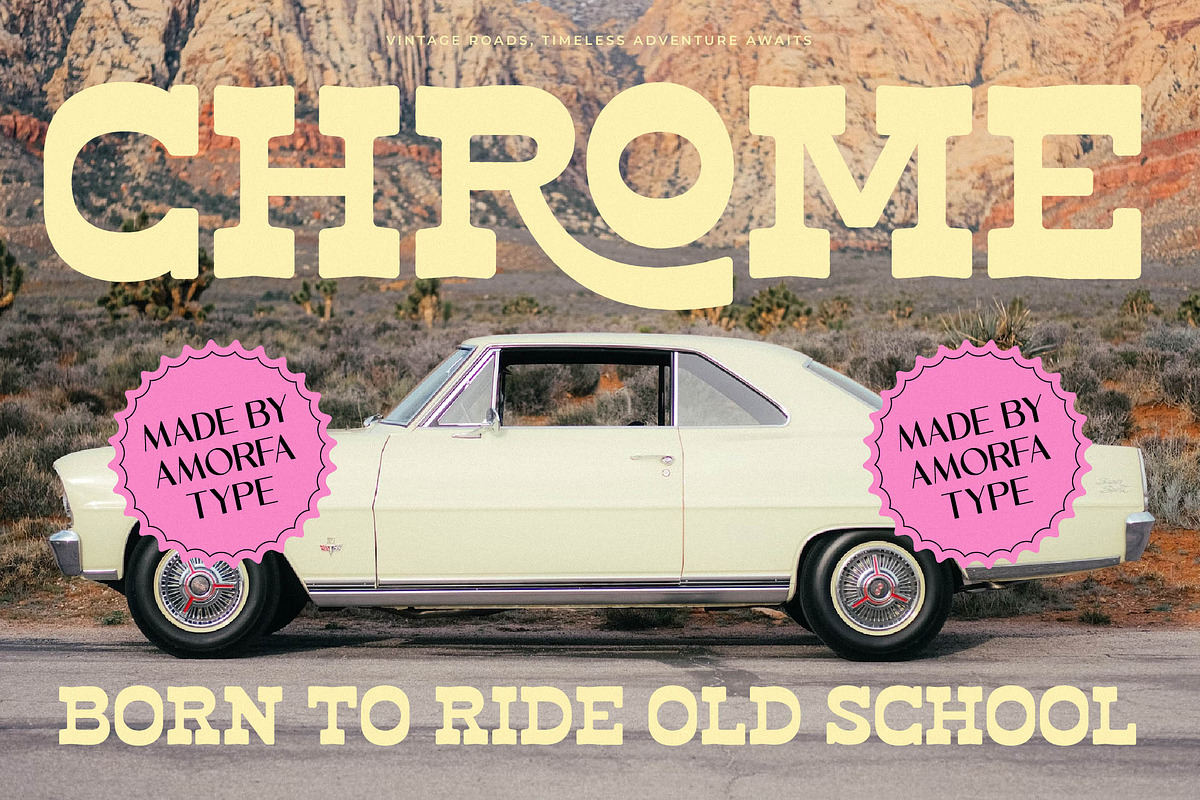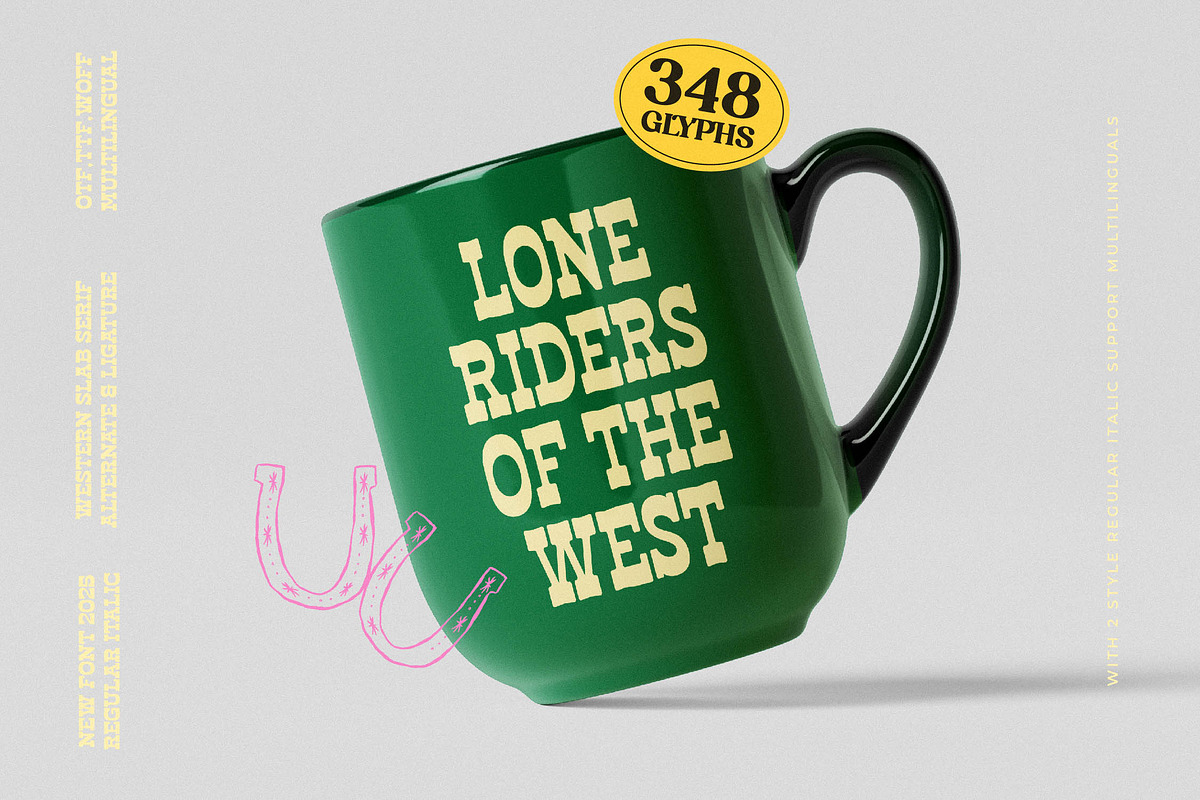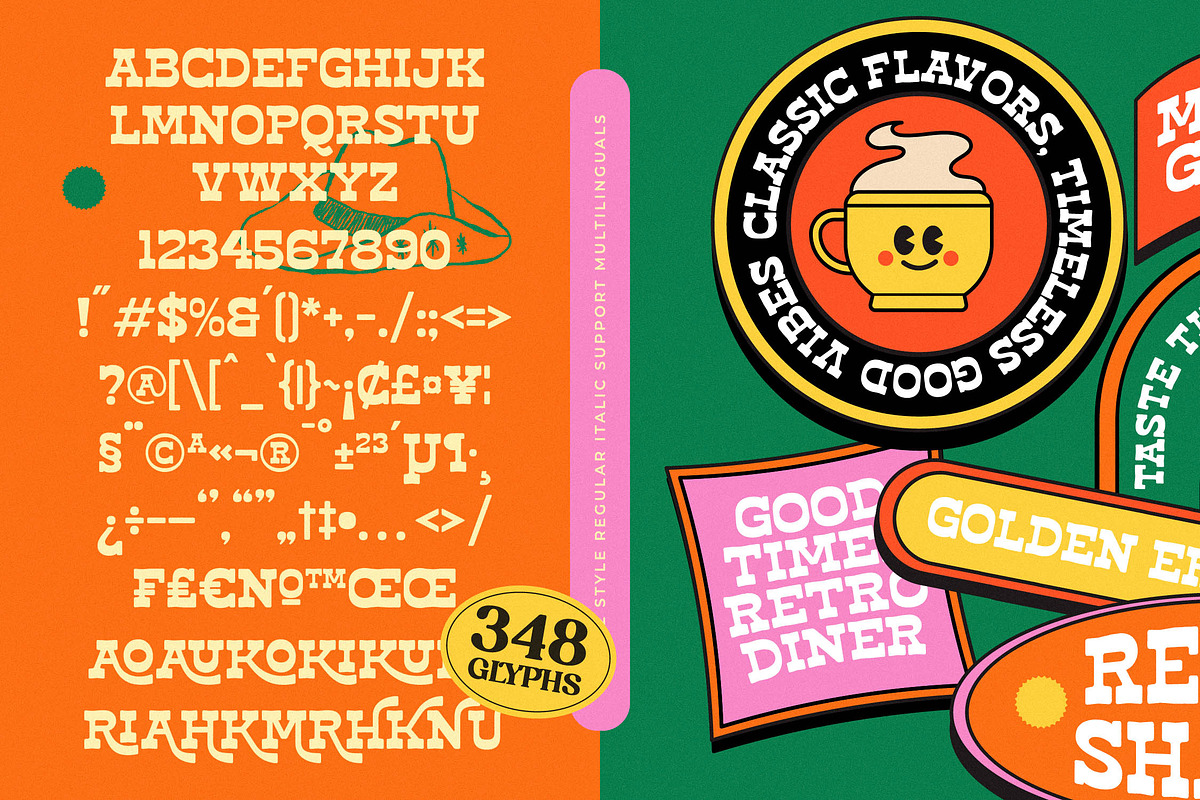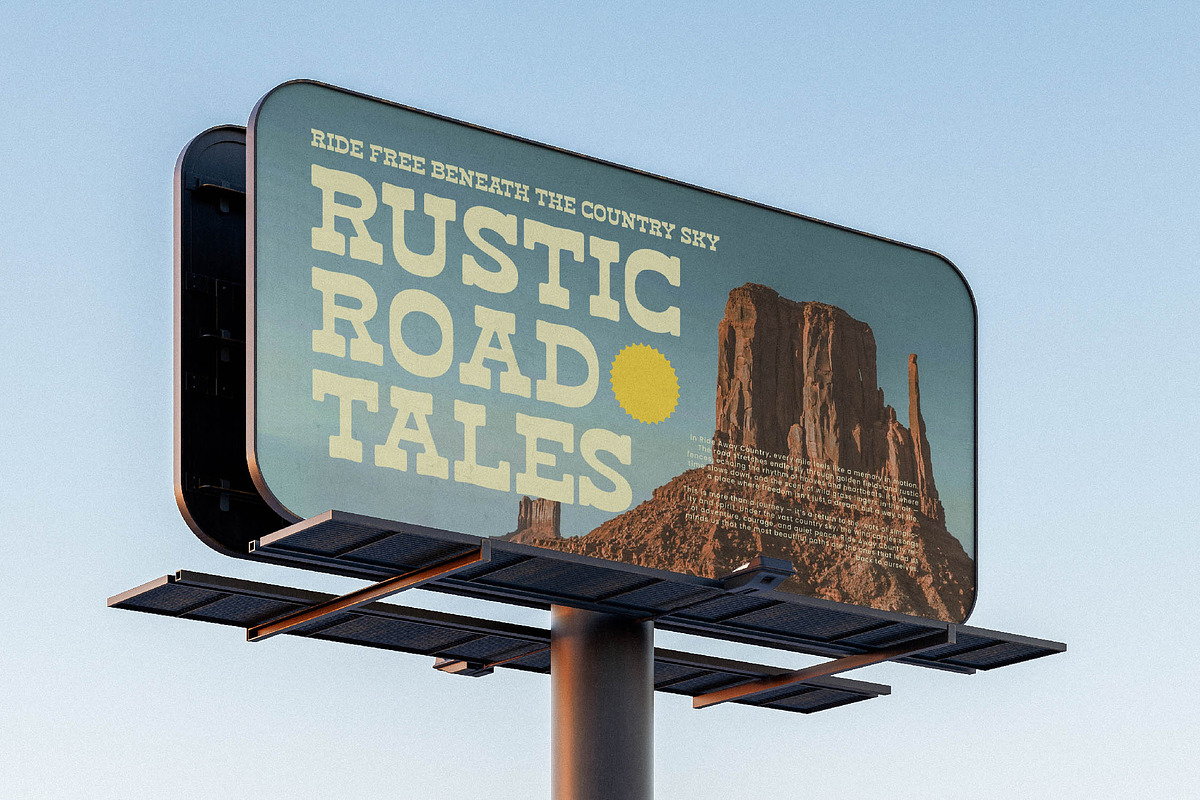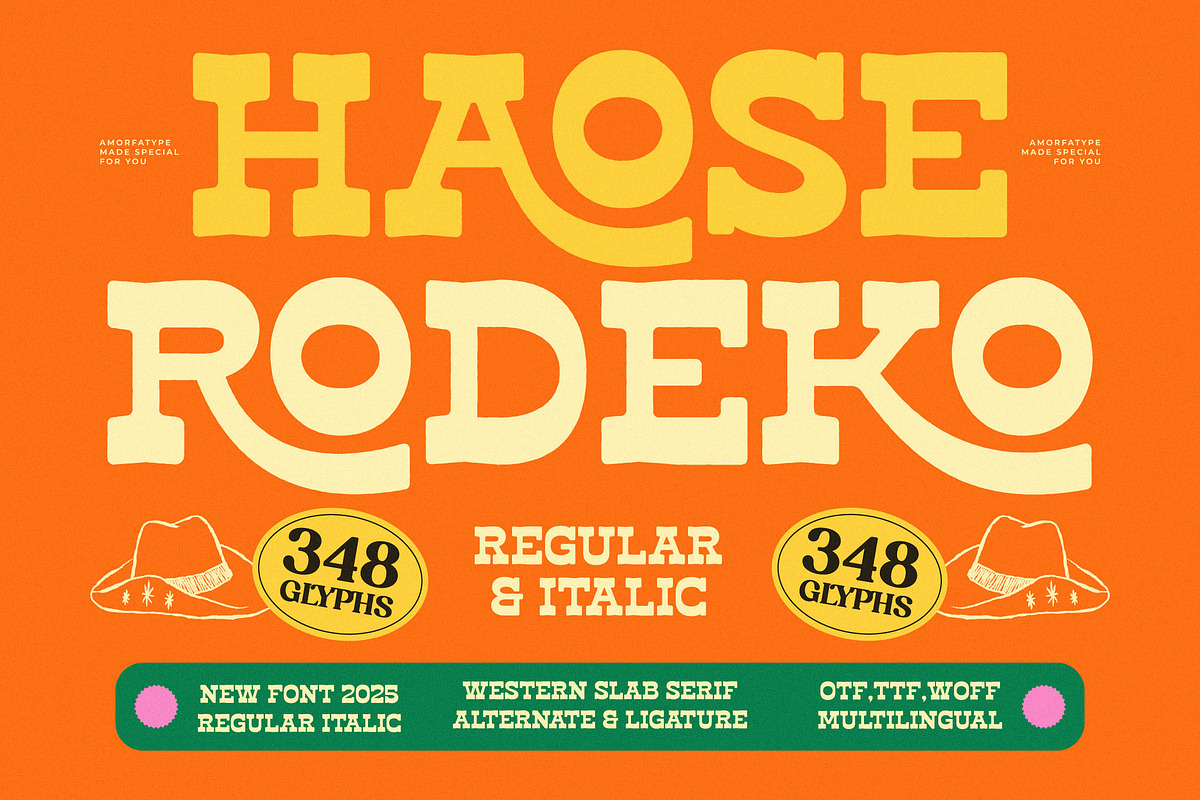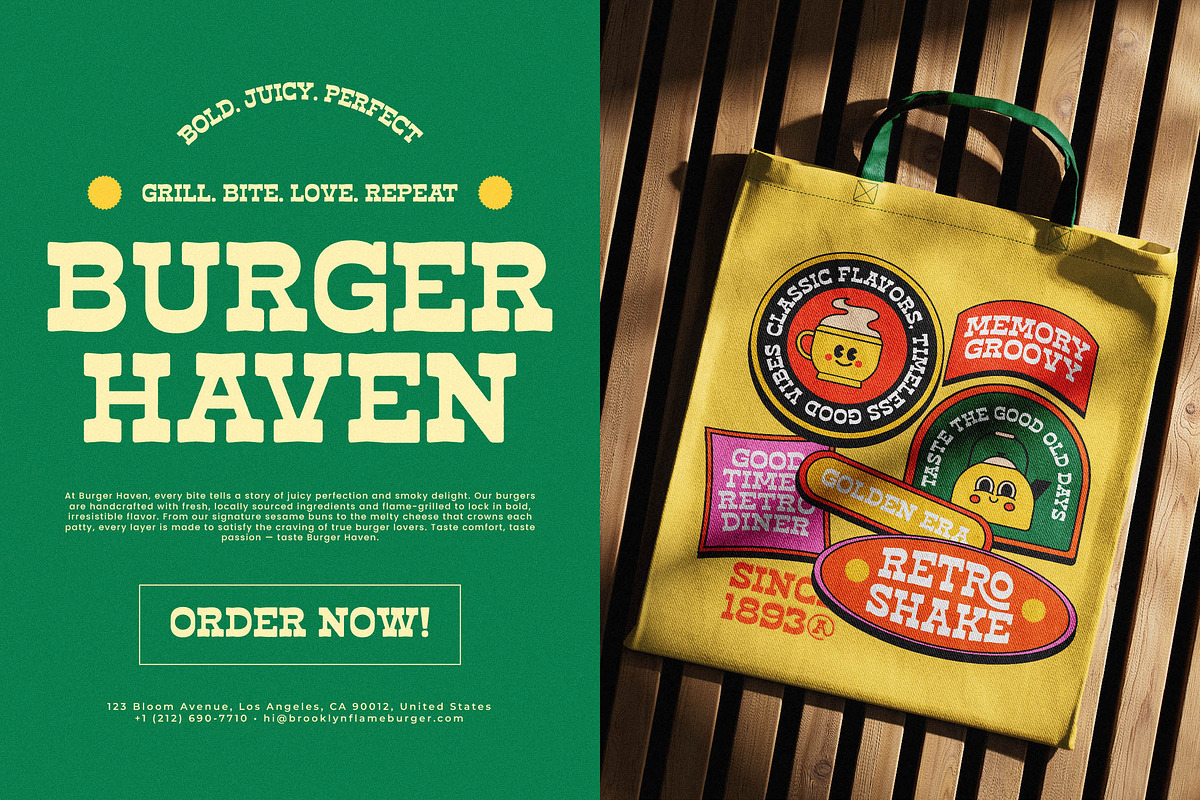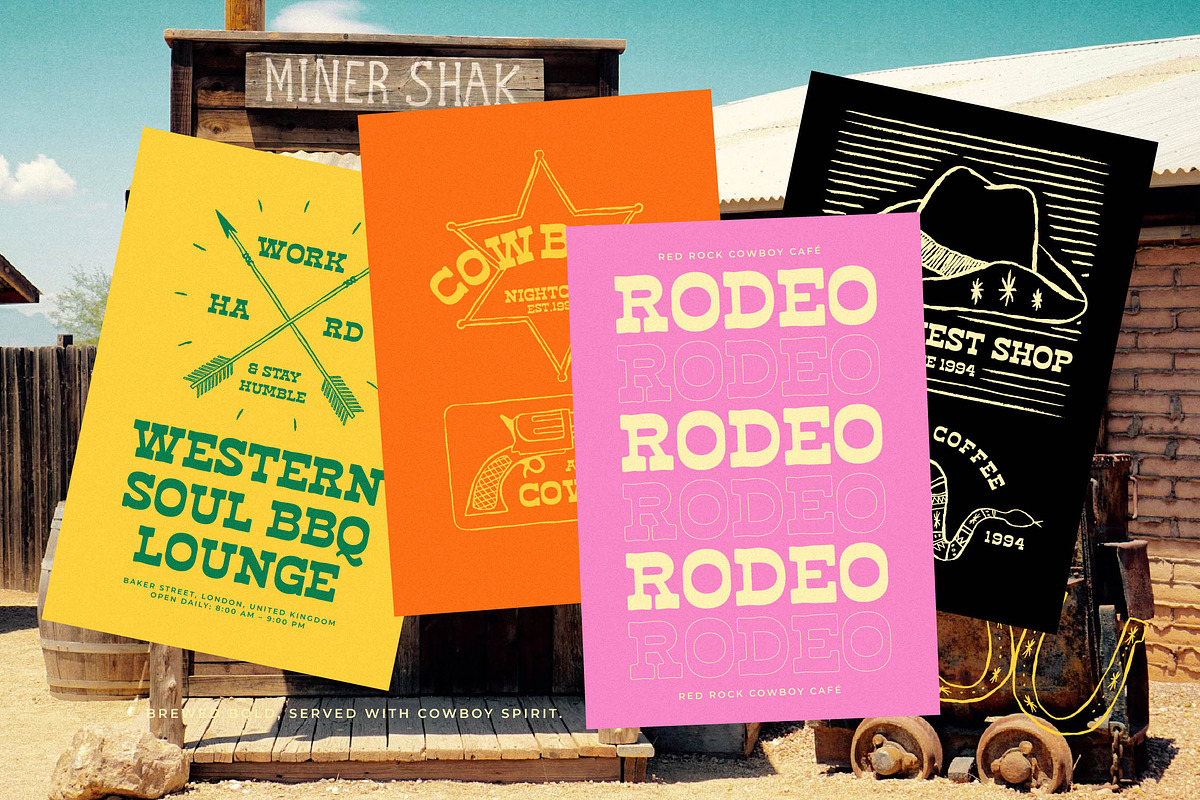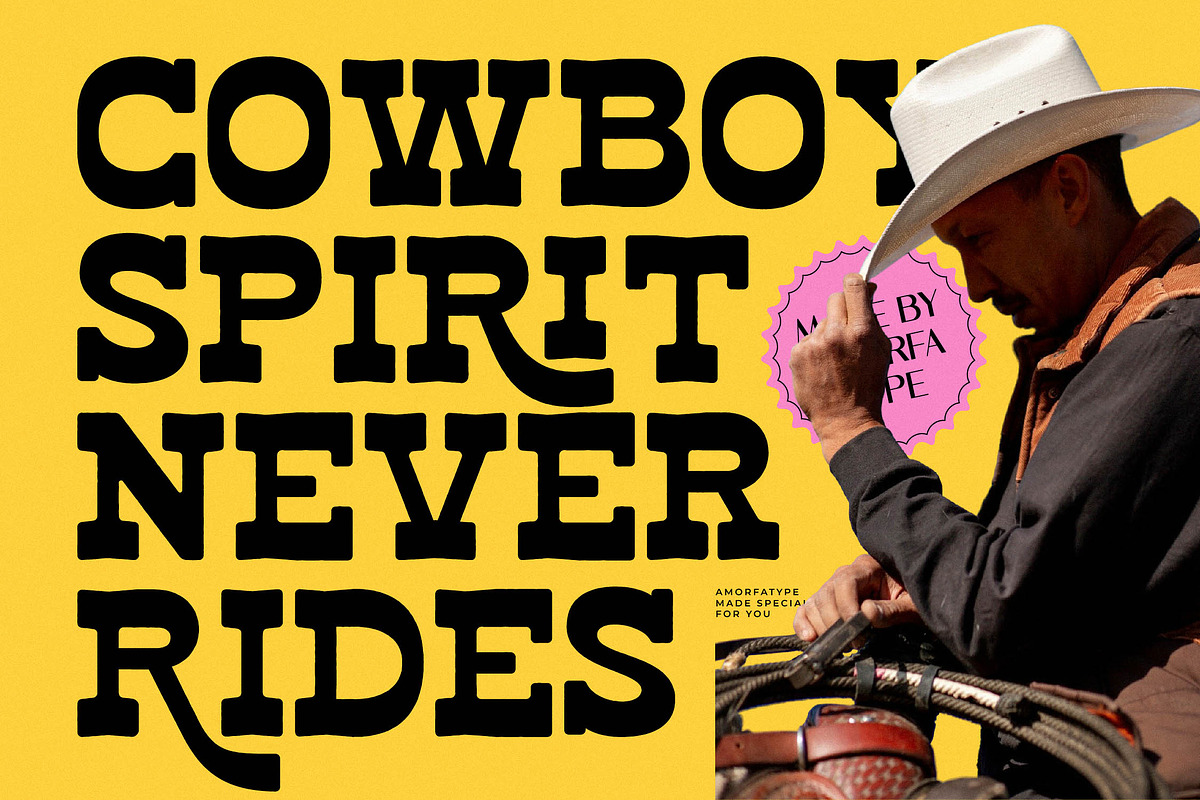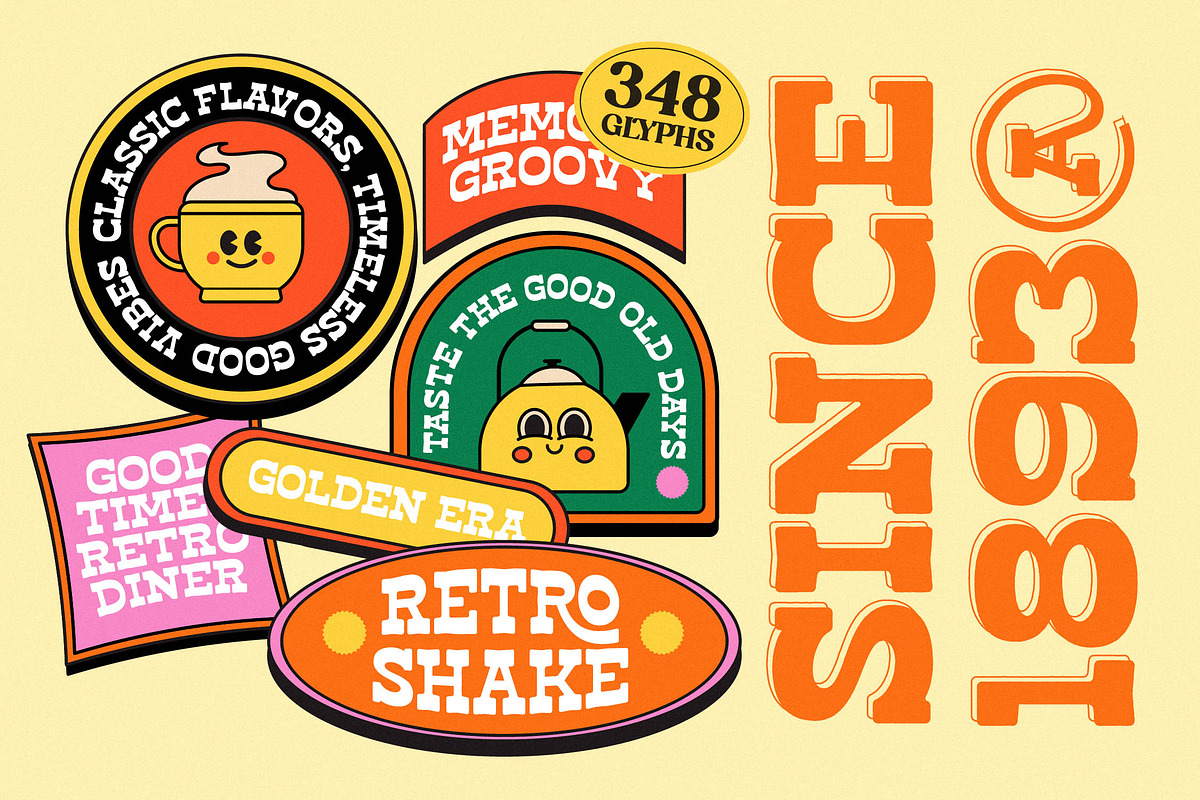
Haose Rodeko Western Slab Serif
Haose Rodeko – A Western Slab Serif Font by Amorfatype
Haose Rodeko is a bold Western-inspired slab serif font that combines rugged charm with a clean, modern edge. Its strong serifs, geometric precision, and confident letterforms make it ideal for vintage branding, posters, packaging, and editorial titles that need a touch of strength and nostalgia.
Designed with versatility in mind, Haose Rodeko offers 348 total glyphs, including 9 alternates and 7 ligatures, giving you creative control to craft distinctive, high-impact typography across both print and digital platforms.
Whether you’re designing a heritage logo, a retro headline, or western-themed visuals, Haose Rodeko delivers personality and timeless appeal in every letter.
- 348 Glyphs
- 9 Alternates & 7 Ligatures